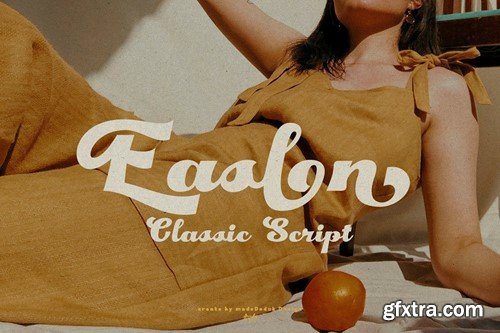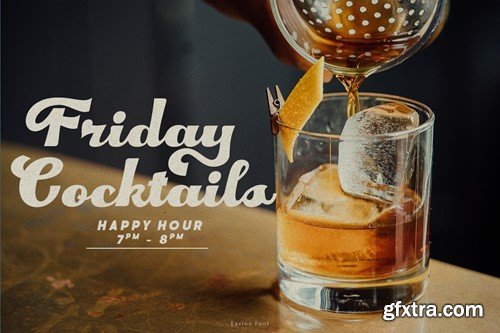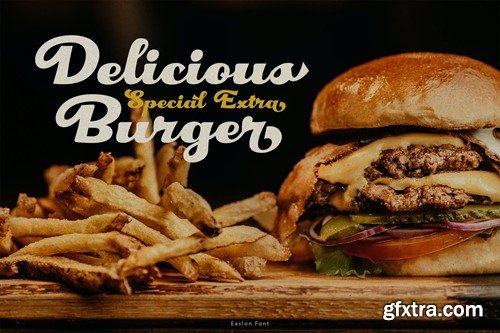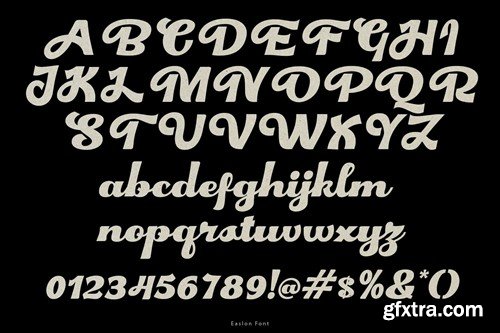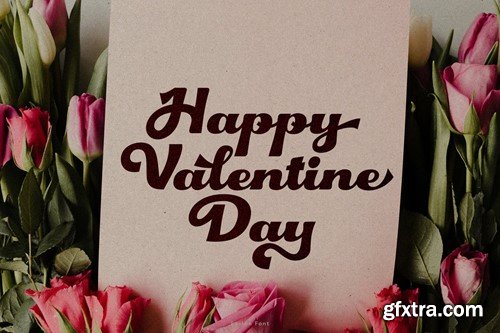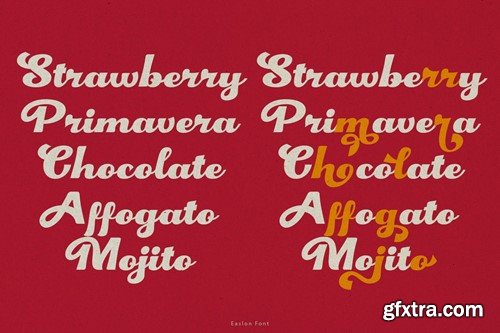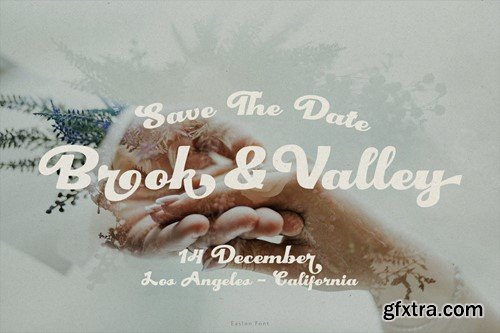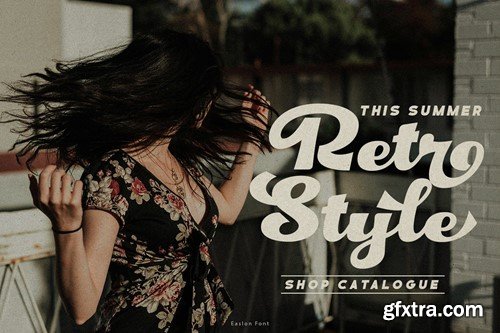
Easlon Retro Font
Easlon is a retro font come with 70's retro style. You can explore and combine creating rhythm for comfortable reading. Retro and refined use this font for any branding, product packaging, invitation, quotes, headline, label, poster, logo etc.
Feature
• Uppercase & Lowercase
• Number & Symbol
• International Glyphs
• Multilingual support
• Alternative
• Ligature